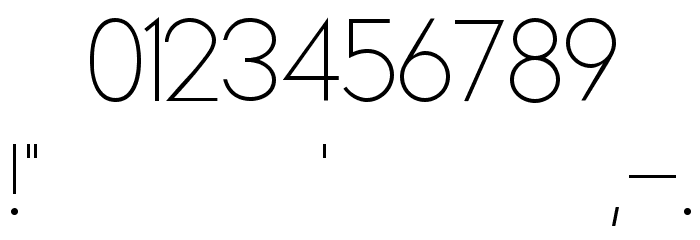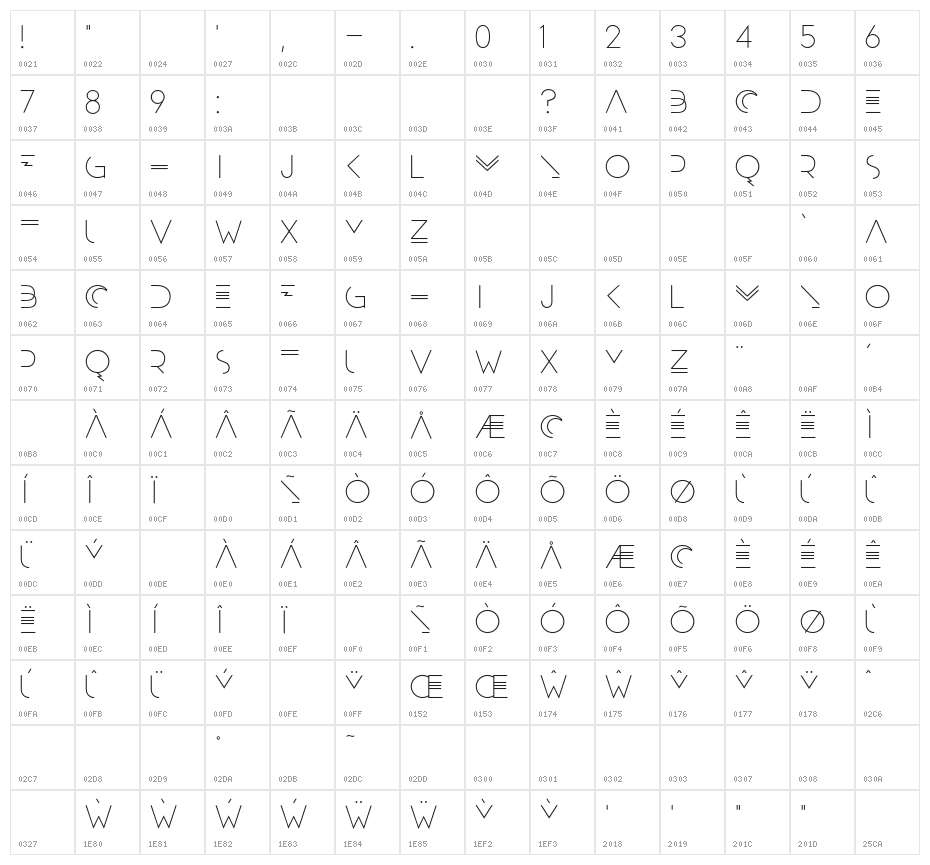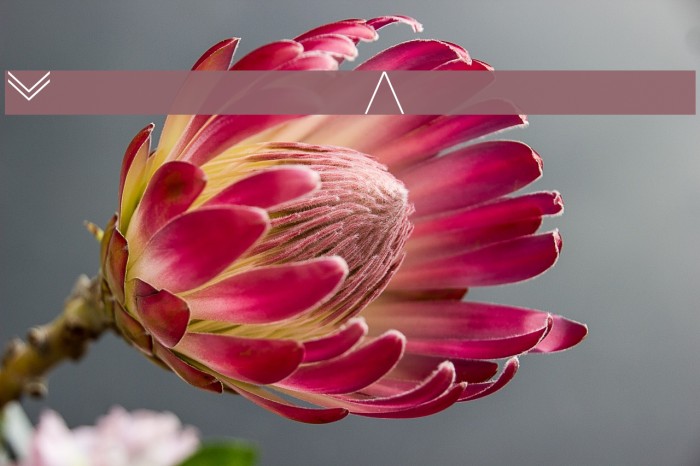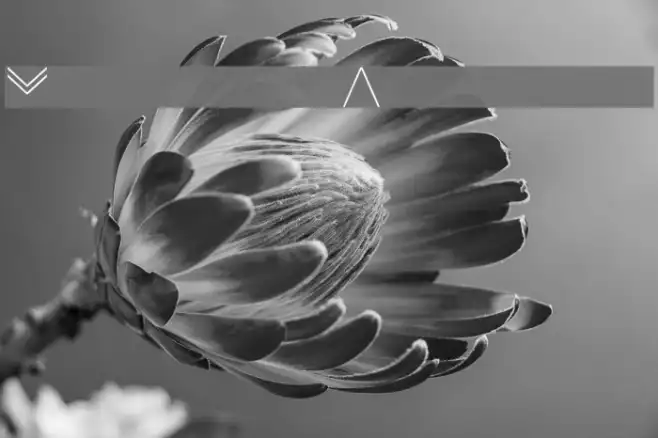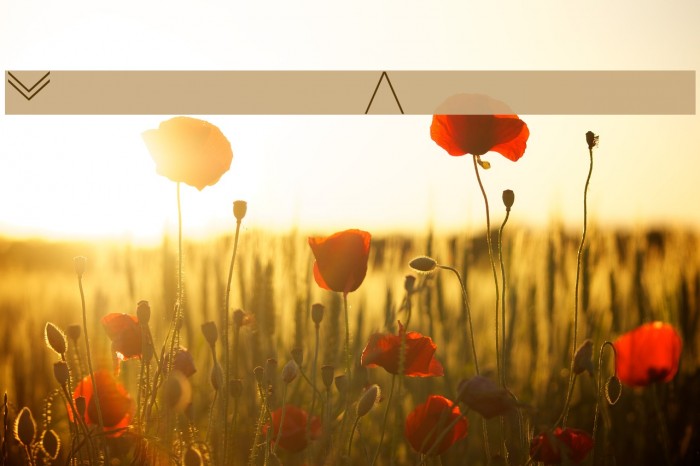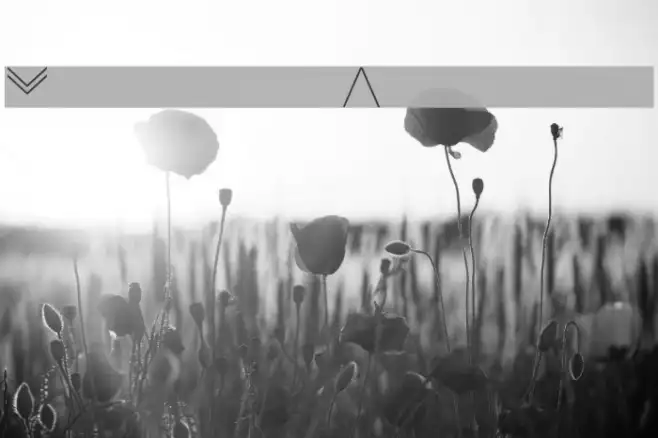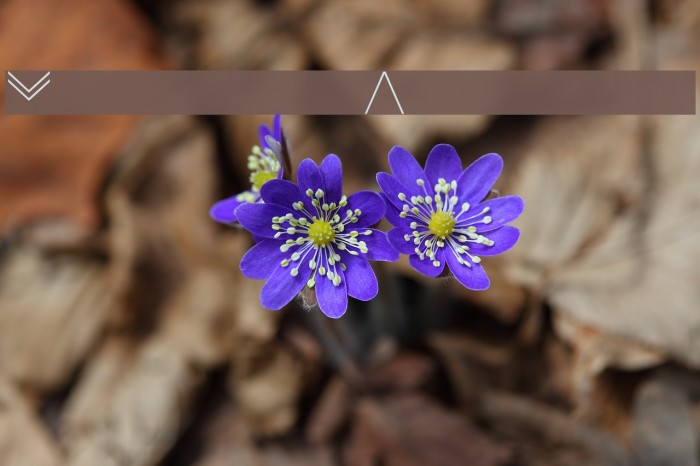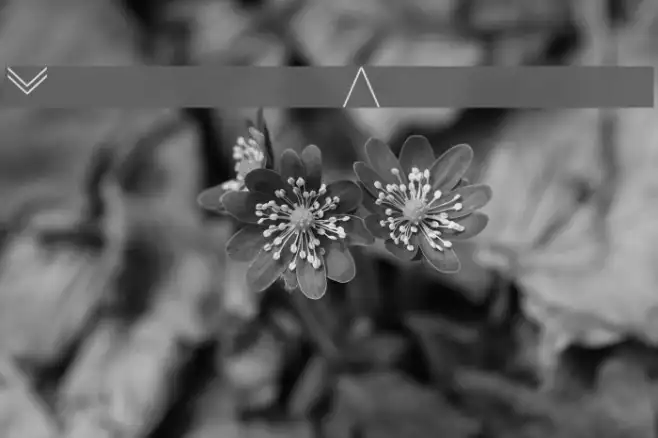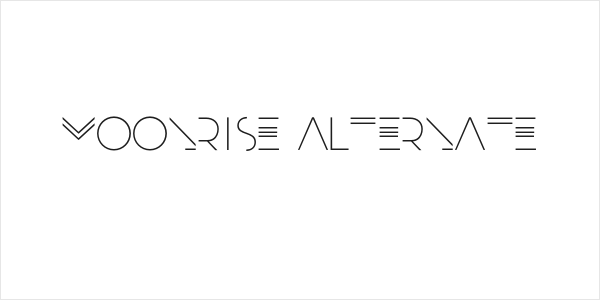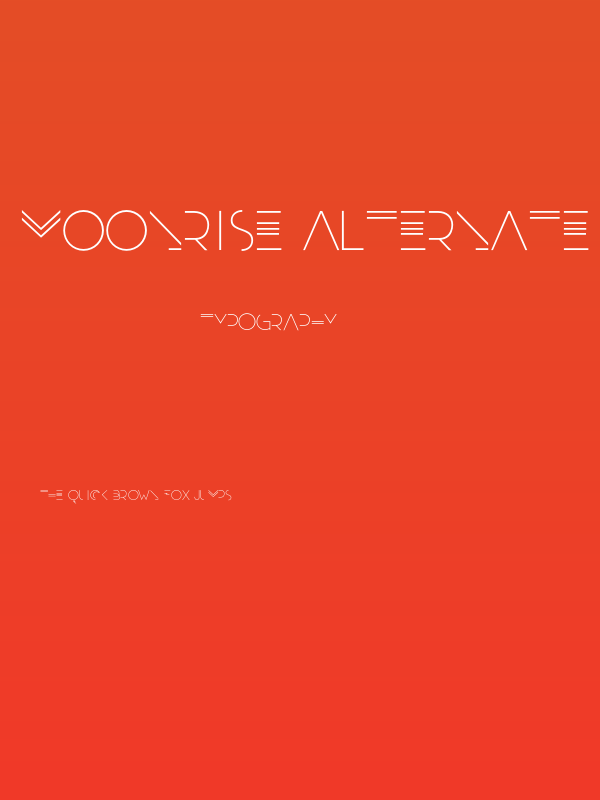
Moonrise Alternate Font
Moonrise Alternate Description
This font features a futuristic and geometric design, characterized by clean lines and sharp angles. The uppercase letters are distinct with unique cuts and slashes, giving them a dynamic and modern appearance. The lowercase letters maintain a consistent style, complementing the uppercase with similar geometric forms. The numerals are sleek and align well with the overall aesthetic, while the special characters add a touch of creativity with their unconventional shapes. This font is ideal for projects that require a contemporary and innovative look, making it suitable for technology-related designs, modern branding, and creative posters.
| Use Case | Logos, Headlines |
| Proposed Projects | Ideal for technology branding, modern posters, and creative design projects. |